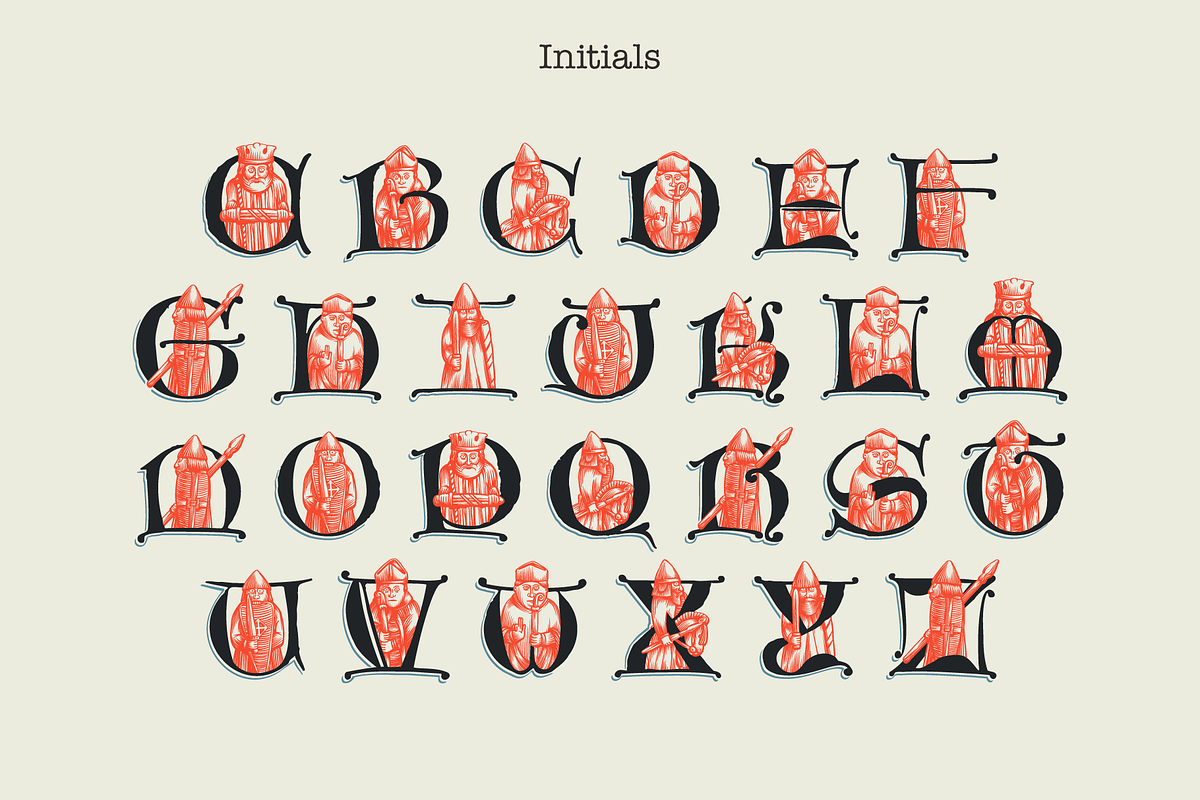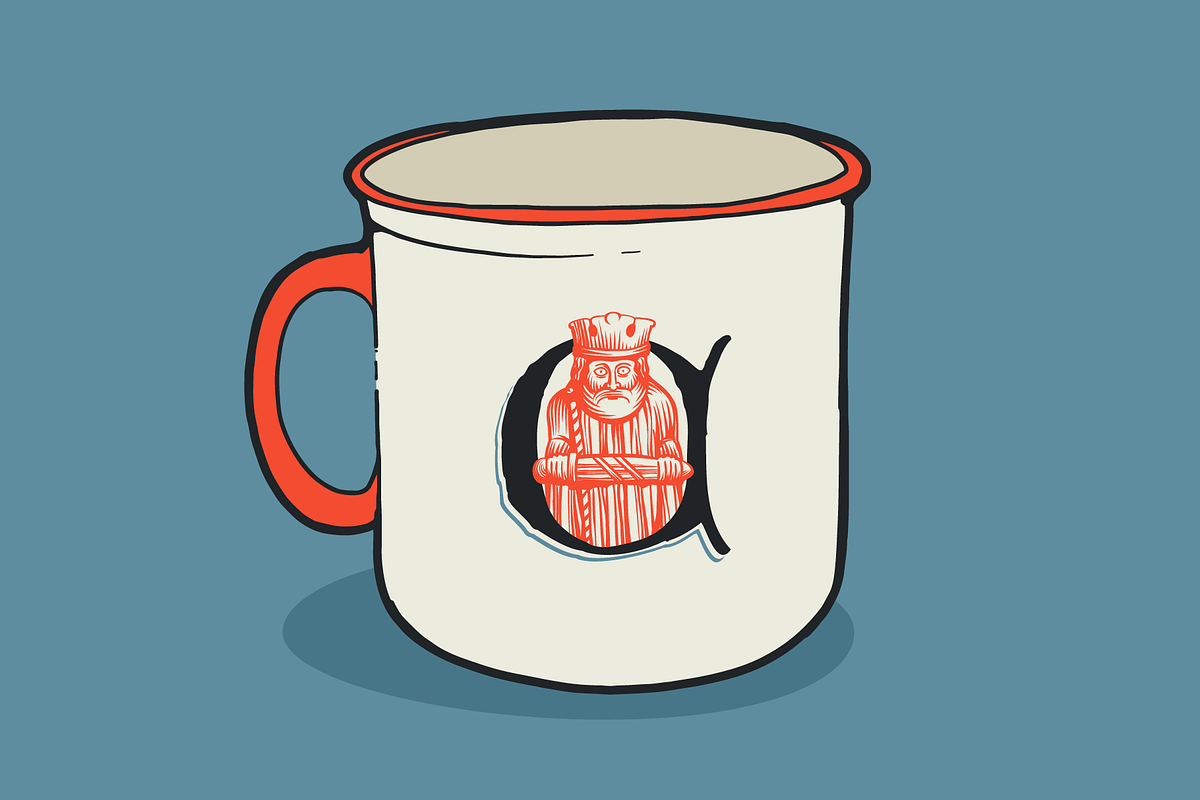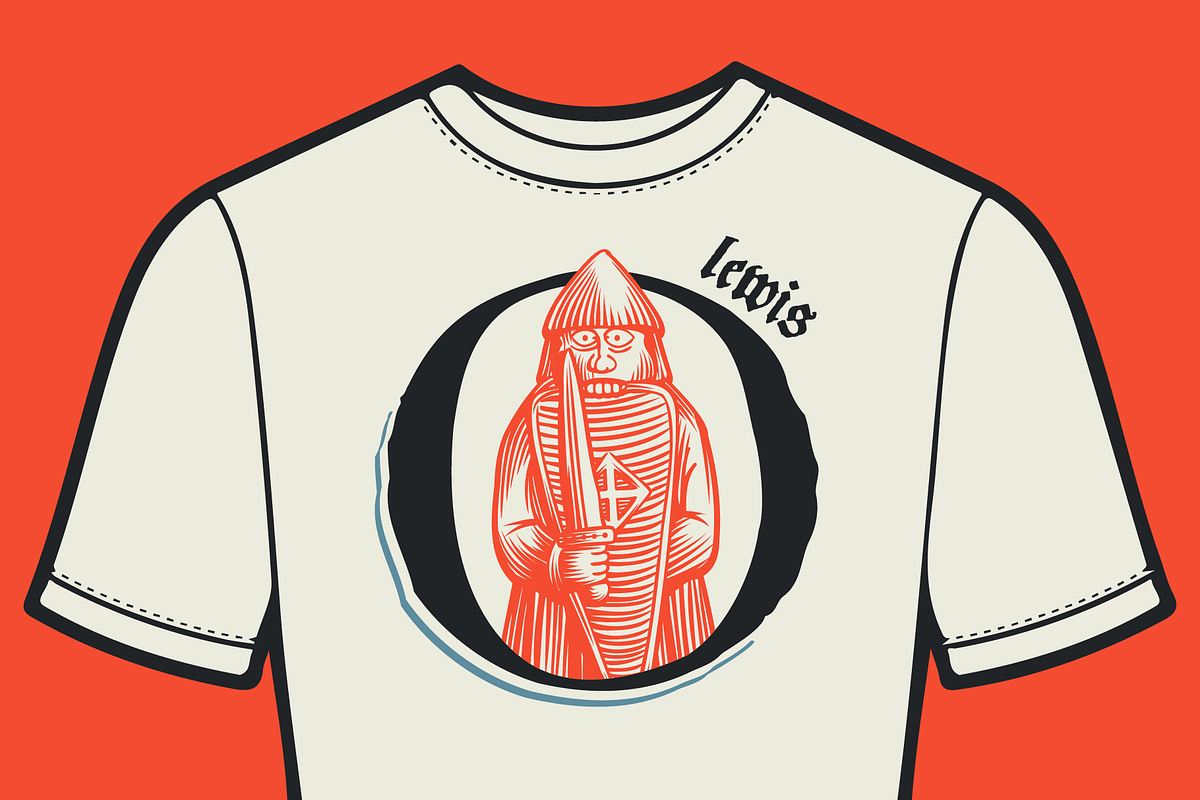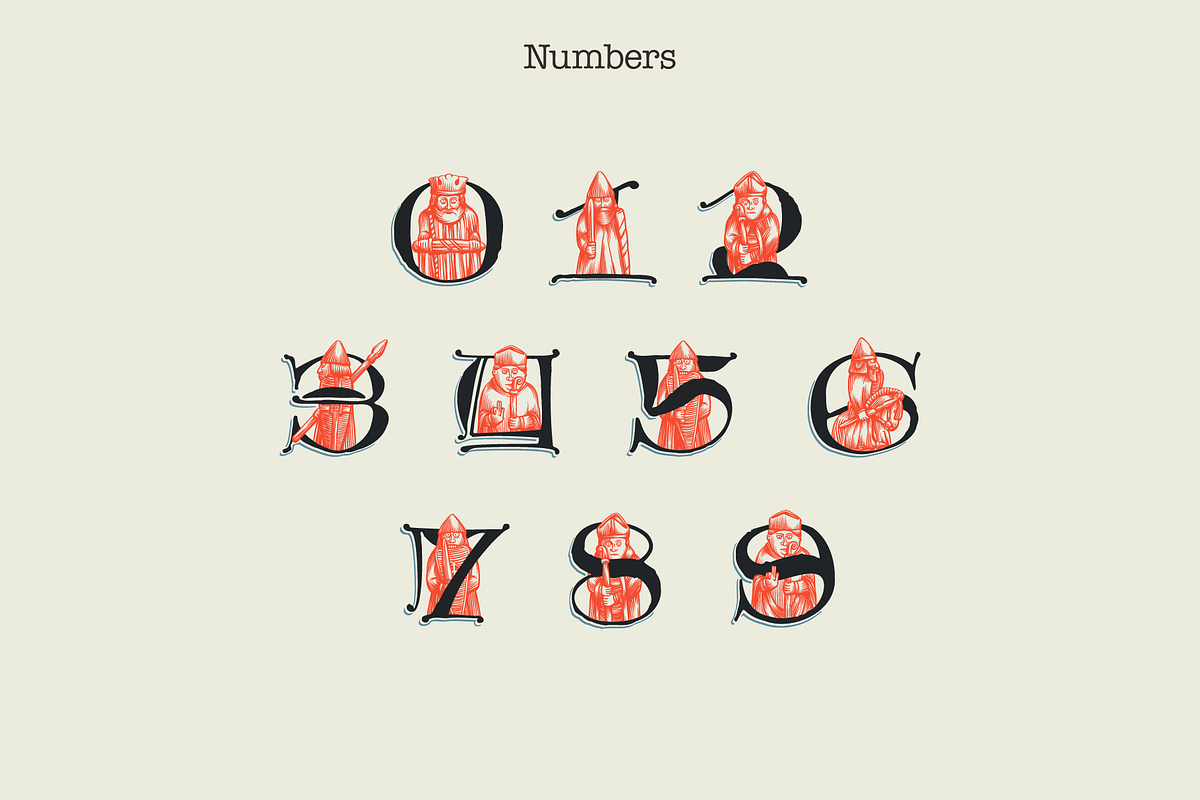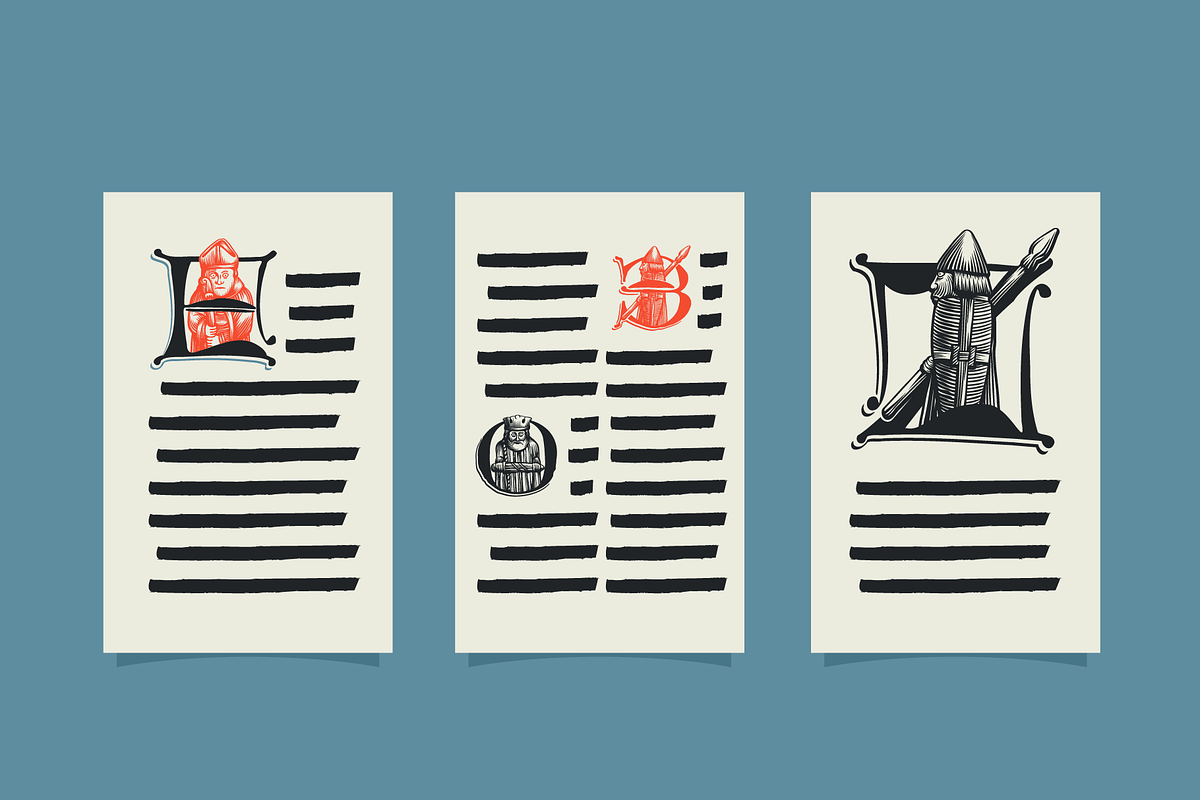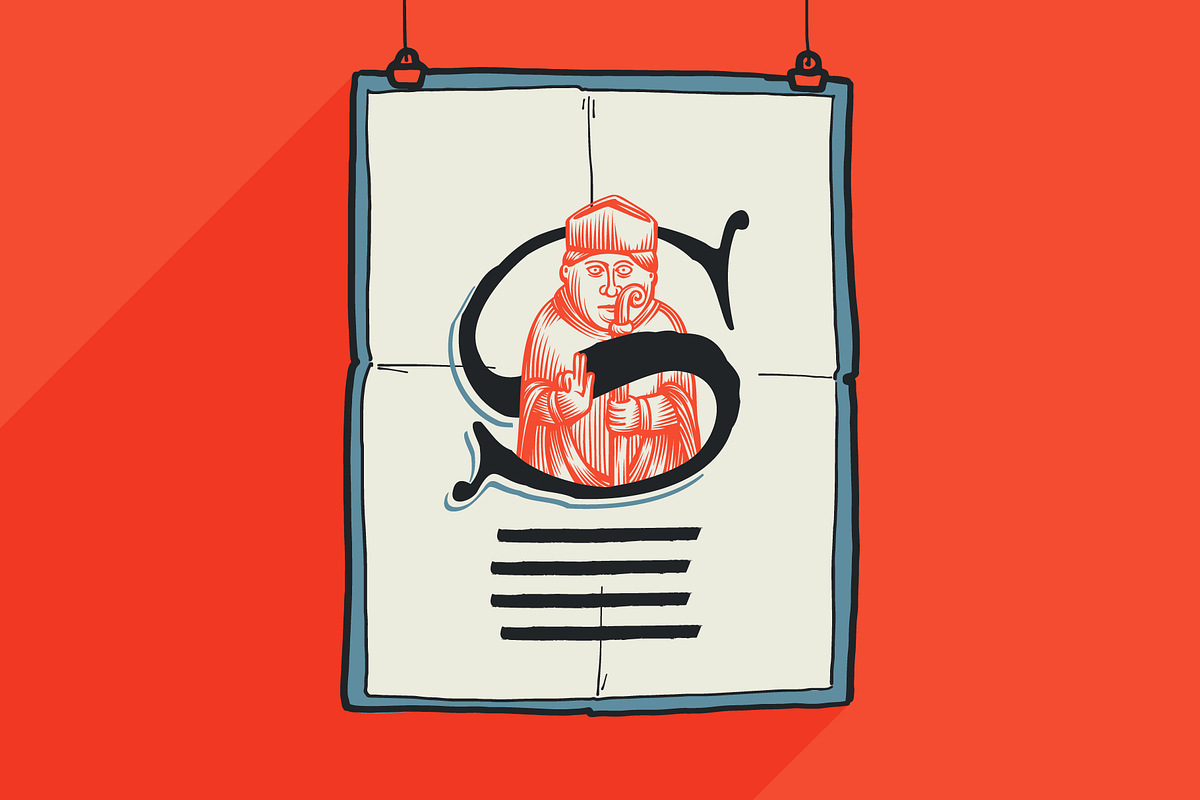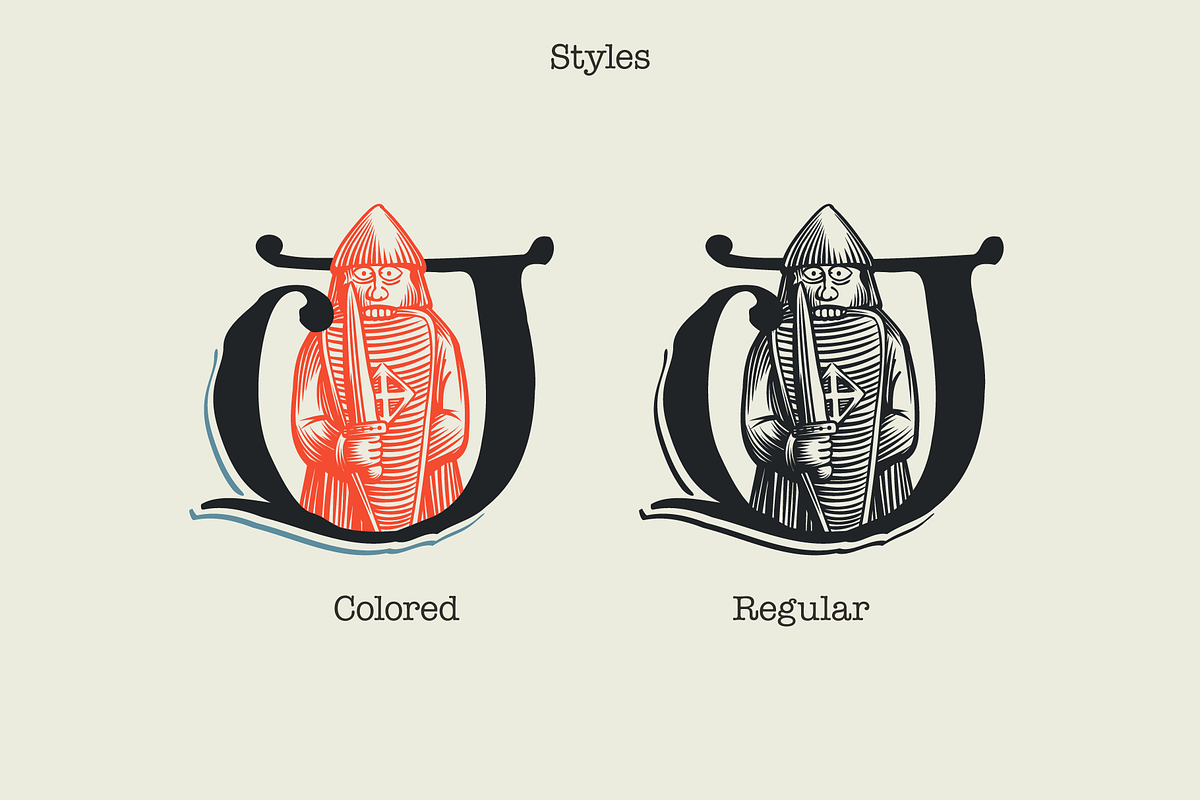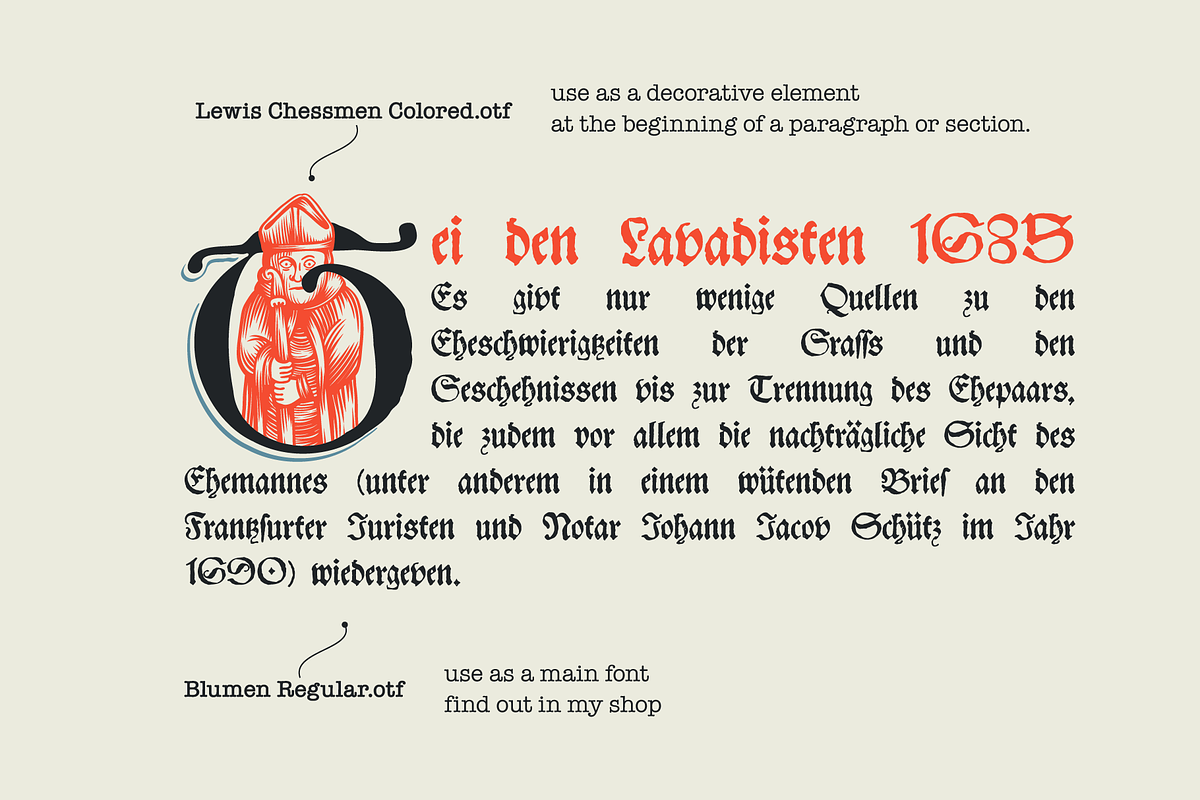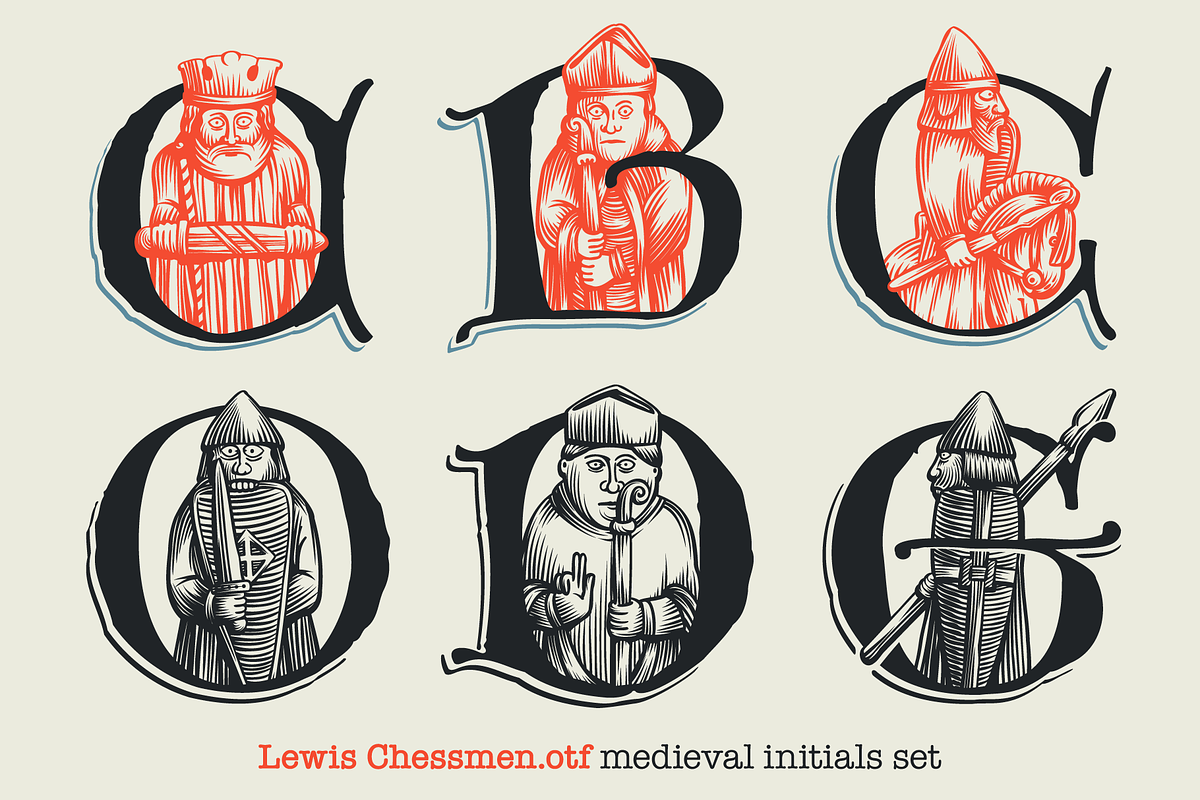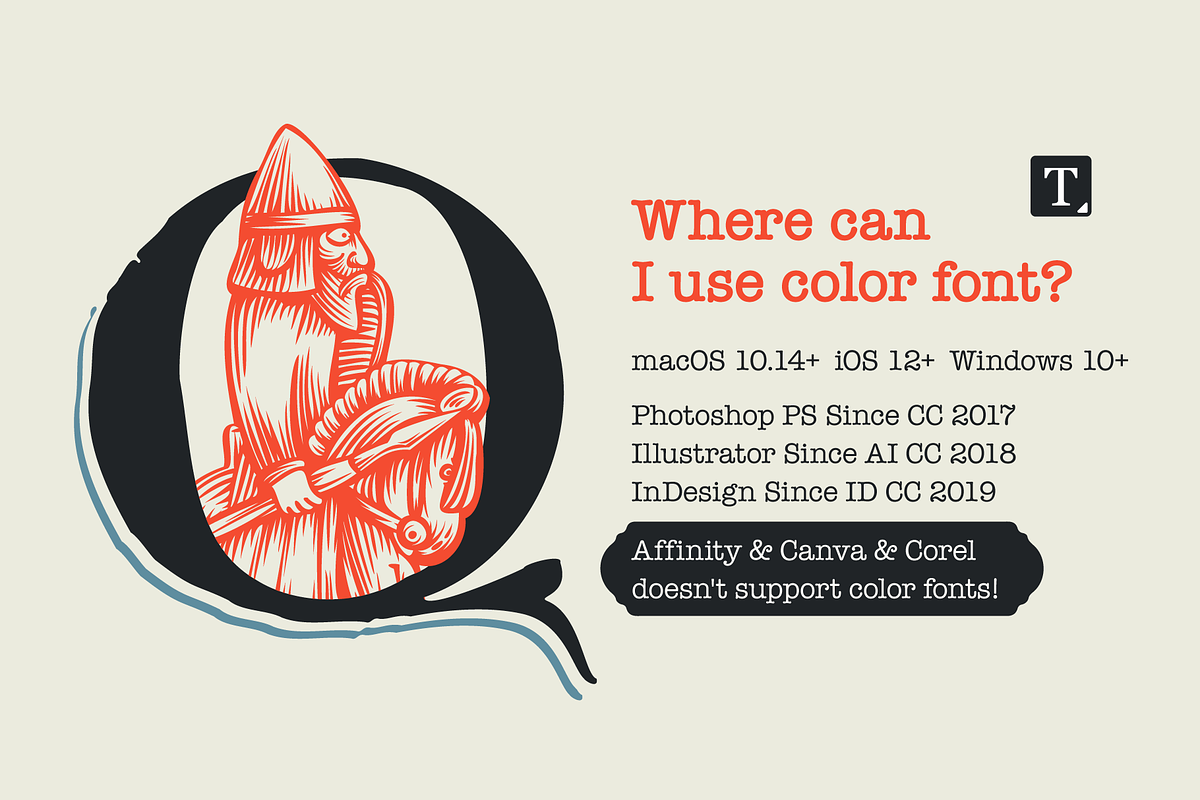
Lewis Chessmen Medieval Initials
Lewis Isles Font – Medieval Initials with Chesspiece Engravings Step into the medieval world with Lewis Isles, a decorative display font inspired by the legendary Lewis chessmen. Each initial letter features detailed engravings of kings, shield-biting berserkers, knights, and bishops — all based on the iconic 12th-century figures discovered on the Isle of Lewis. Perfect for fantasy titles, book covers, tabletop games, and historical projects.
- A–Z uppercase initials with illustrated engravings
- Numbers set
- Medieval-style body font
- High-detailed vector drawings
Bring the mystique of the North Atlantic past to your typography.